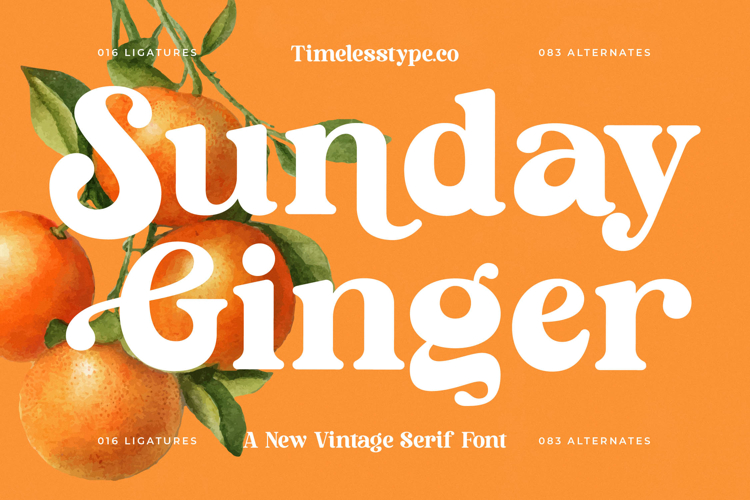
Sunday Ginger - New Vintage Serif Font
Discover the captivating charm of Font Sunday Ginger - New Vintage Serif Font Serif Display, a typeface engineered for enduring appeal. This exquisite serif display font effortlessly blends vintage elegance with a contemporary twist, featuring a striking high-contrast design and beautifully weighted letterforms. Its distinctive curves and bold presence command attention, making every design statement both memorable and refined.
Unleash unparalleled creative potential with Font Sunday Ginger - New Vintage Serif Font Serif Display's rich feature set. Boasting 016 carefully crafted ligatures and 083 dynamic alternates, this font provides designers with extensive tools to create truly unique and customized typography. These thoughtful additions ensure your headlines, logos, and mastheads exude an extraordinary level of sophistication and character, setting your work apart.
Elevate your visual storytelling with the perfect typeface for impactful communication. Font Sunday Ginger - New Vintage Serif Font Serif Display is ideally suited for luxury branding, sophisticated packaging, high-end editorial design, fashion campaigns, and magazine layouts. Its inherent grace makes it the ultimate choice for product labels, elegant invitations, and any marketing material requiring a touch of timeless class and distinction.
Expand your design reach effortlessly with a font built for the global stage. With its extensive multilingual support, Font Sunday Ginger - New Vintage Serif Font Serif Display adapts seamlessly across global markets, making it incredibly versatile for international projects. This ensures your brand message resonates universally, solidifying Font Sunday Ginger - New Vintage Serif Font Serif Display as an indispensable asset for any discerning designer aiming for professional excellence and global impact.